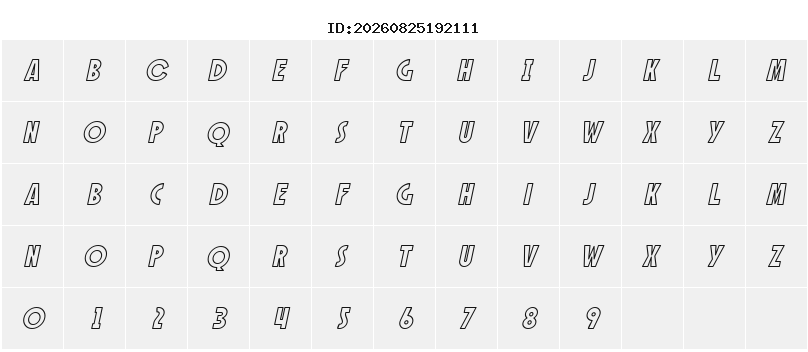
SF Speakeasy Outline Preview
• Font Name: SF Speakeasy Outline
• Font Style: Oblique
• Full Font Name: SF Speakeasy Outline Oblique
• Designer: ShyFonts Type Foundry
• Description: SF Speakeasy Outline Oblique is a trademark of the ShyFonts Type Foundry.
About SF Speakeasy Outline.ttf
SF Speakeasy Outline.ttf is a modern, elegant sans-serif font designed for ultimate readability and visual harmony. Perfect for branding, headlines, web design, and print materials.